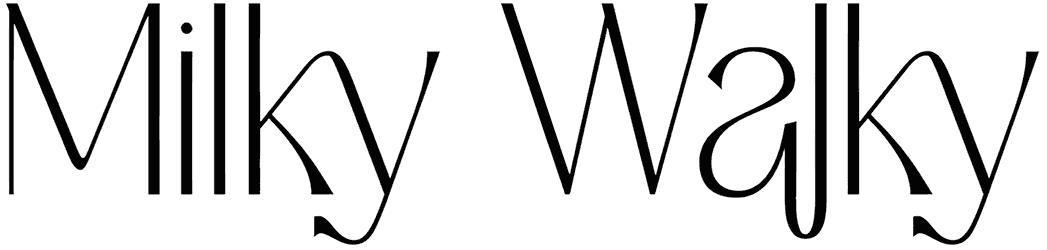
In order to start an equal competition with all high-end graphic content in the market, you must reinforce your artwork by utilizing a remarkable luxury serif font such as Milky Walky.
This masterpiece is crafted with a considerable amount of skill and precision, thus instilling a feeling of professionalism, momentum, confidence, and respect in the audience’s minds. We strongly recommend that you not overlook this font and pick it up for your posters, branding, logos, digital brochures, or editorial projects.